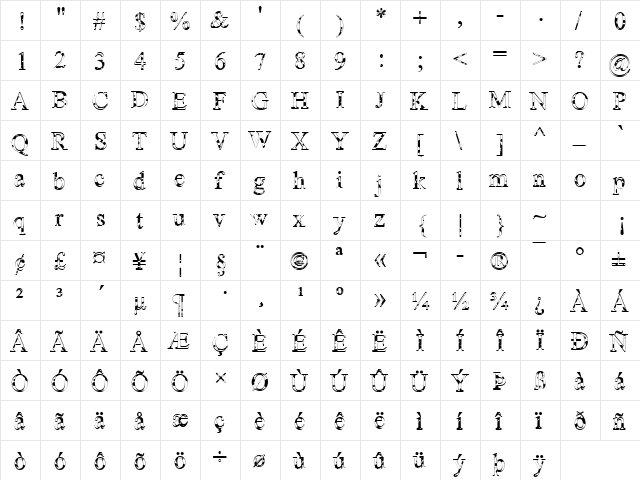
Dalmation By Zane Regular
Design Context for Dalmation By Zane Typeface
Dalmation By Zane is a composed and adaptable typeface that performs quietly and consistently across a wide range of design contexts.